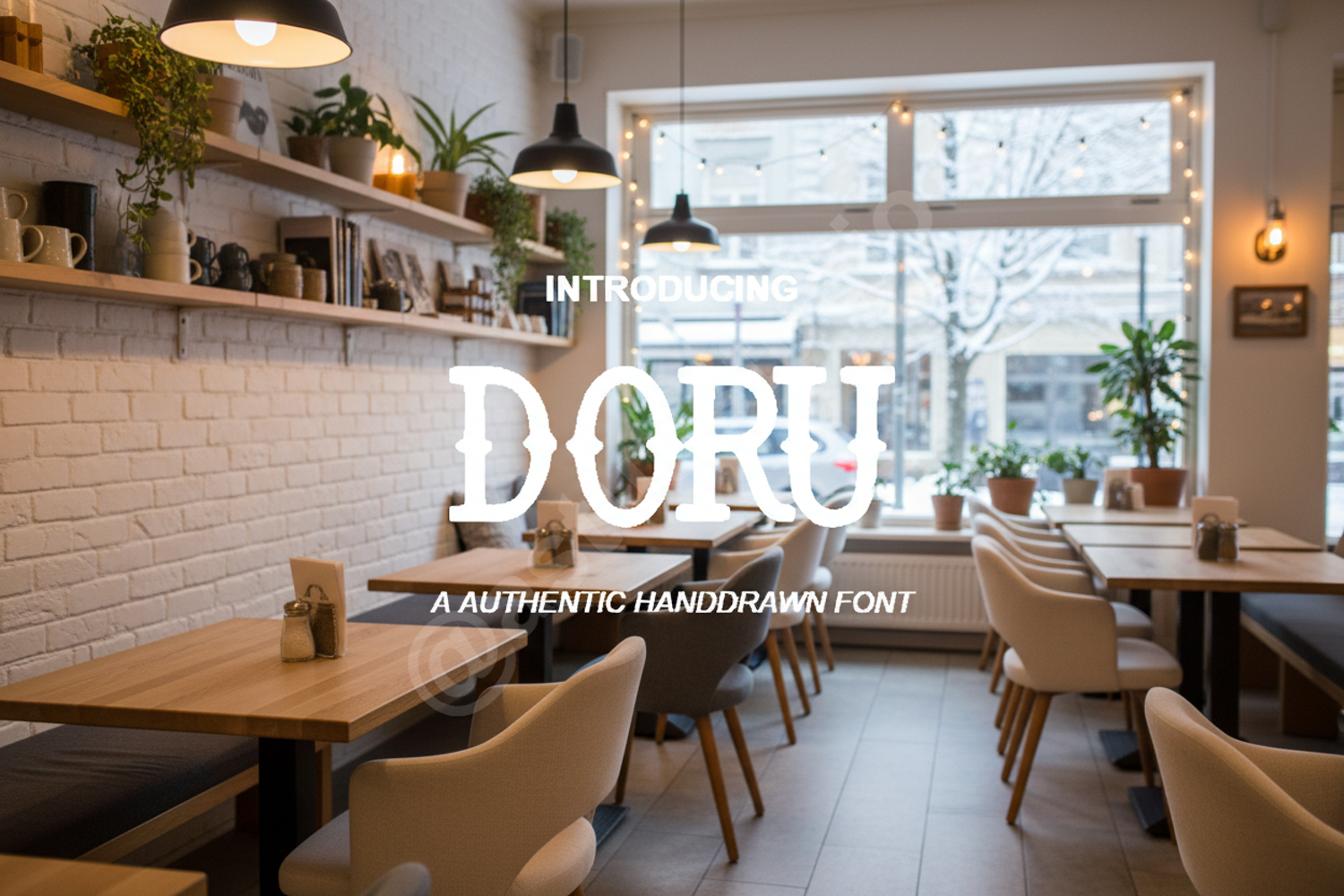
Doru - Elegant Modern Serif Display Font
Doru
Doru is a premium serif font designed with sophistication and versatility at its core. This typeface strikes a perfect balance between classic elegance and contemporary minimalism, making it an essential addition to any designer's toolkit. Whether you are crafting a high-end brand identity or a sleek editorial layout, Doru delivers a polished and professional aesthetic every time.
- Branding and Logo Design: Create memorable and upscale visual identities.
- Wedding Stationery: Perfect for invitations, menus, and place cards with a timeless feel.
- Editorial Layouts: Ideal for magazine headers, book covers, and digital articles.
- Social Media: Elevate your Instagram quotes and Pinterest graphics.
- Product Packaging: Add a touch of luxury to your physical goods.